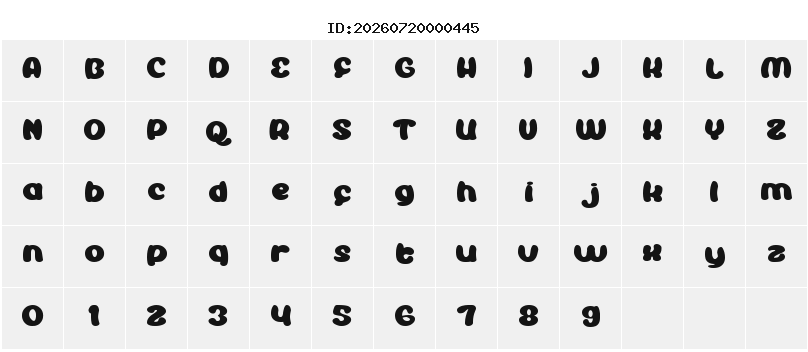
• Font Name: Enjoy The Show
• Full Font Name: Enjoy The Show
About Enjoy The Show.ttf
Enjoy The Show.ttf is a modern, elegant sans-serif font designed for ultimate readability and visual harmony. Perfect for branding, headlines, web design, and print materials.